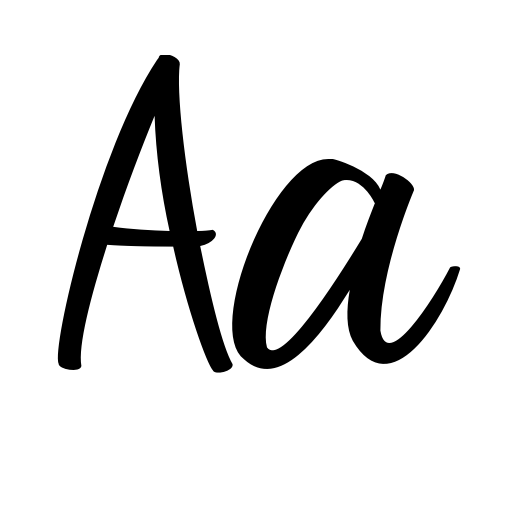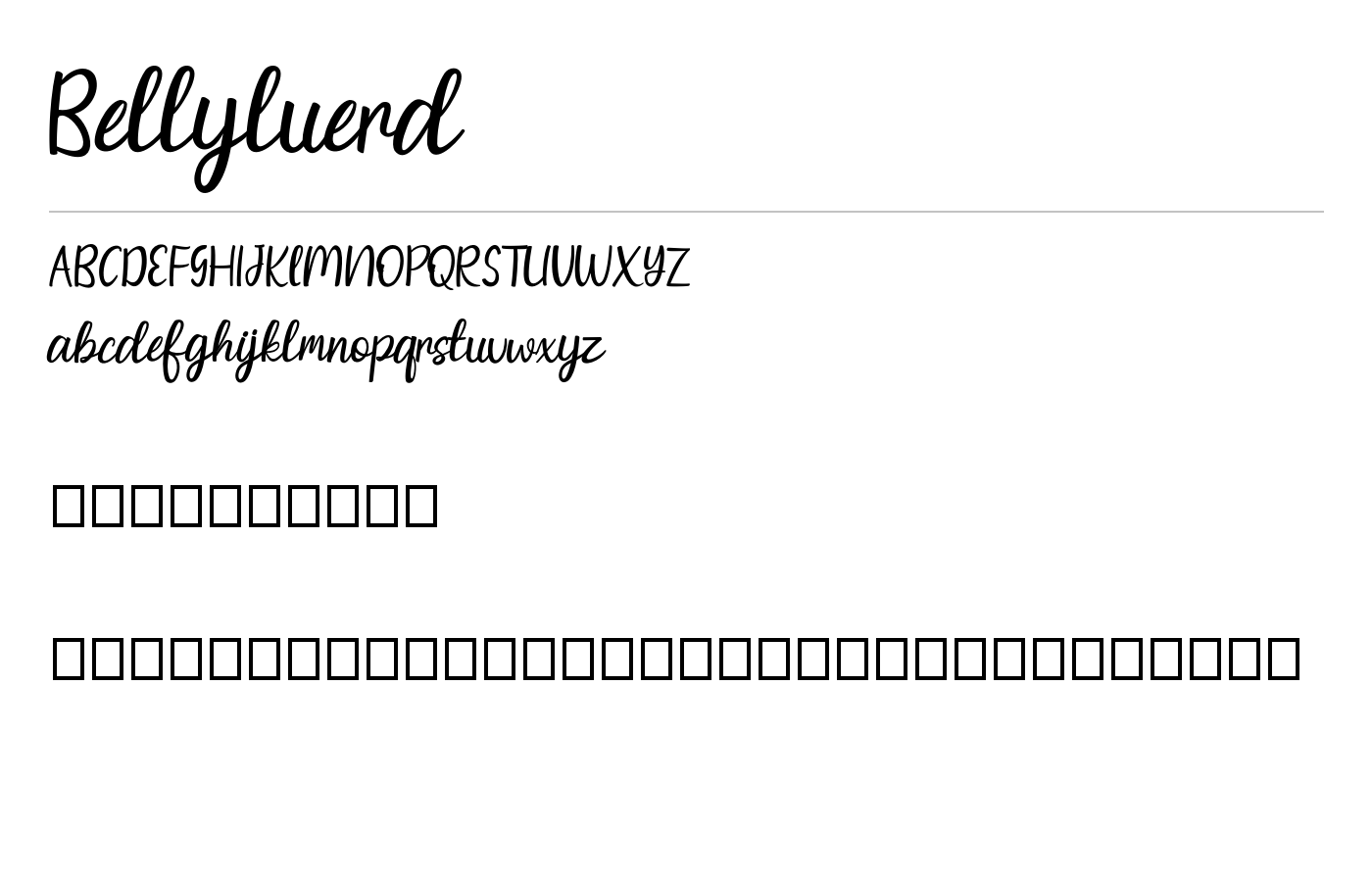
Bellyluerd is a playful and elegant script font characterized by its smooth, connected strokes and moderately high x-height, making it both friendly and readable. Its slightly condensed letterforms with a casual yet refined feel work beautifully for creative branding, invitations, and lifestyle projects that seek a personal, handwritten touch. This font shines in headline and logo use where warmth and approachability are essential.
Bellyluerd Font
About Bellyluerd Font